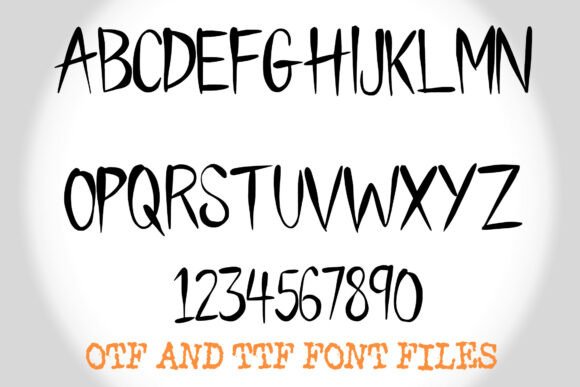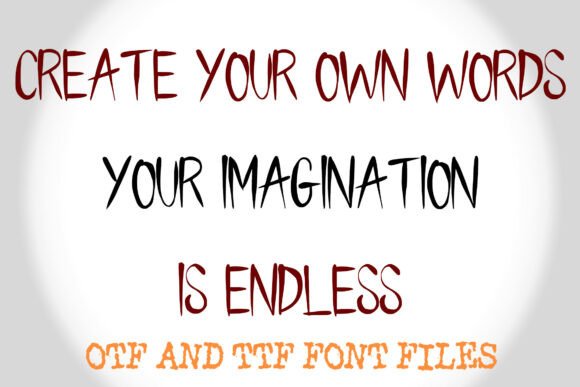
Unleash Your Creativity with Edgy Ink Handwriting Font
Are you tired of using the same old fonts for your designs? Do you want to add a touch of rebellion and attitude to your projects? Look no further than the Edgy Ink Handwriting Font. This spiky, expressive handwritten font is perfect for creators who want to make a statement.
The Perfect Font for Edgy Designs
Edgy Ink Handwriting Font is a gritty yet stylish choice for designers who want to add a touch of horror, edginess, or artsiness to their projects. Its elongated, pointed strokes give it a rebellious vibe that’s perfect for:
- Horror titles and movie posters
- Edgy branding and packaging
- Posters and flyers for concerts or events
- Zines and independent publications
What Makes Edgy Ink Handwriting Font So Unique?
Edgy Ink Handwriting Font stands out from other fonts due to its unique characteristics. Here are a few features that make it so special:
- Elongated, pointed strokes: The font’s elongated strokes give it a sense of movement and energy, while the pointed tips add a touch of edginess.
- Spiky and expressive: The font’s spiky and expressive nature makes it perfect for designs that require a bit of attitude and personality.
- Handwritten feel: The font’s handwritten feel gives it a personal and organic touch that’s perfect for designs that require a bit of humanity.
Why Choose Edgy Ink Handwriting Font?
There are many fonts available that can add a touch of edginess to your designs. So, why choose Edgy Ink Handwriting Font? Here are a few reasons:
- Versatility: Edgy Ink Handwriting Font can be used for a wide range of projects, from horror titles to edgy branding.
- Ease of use: The font is easy to read and use, making it perfect for designers of all skill levels.
- Unique style: The font’s unique style ensures that your designs will stand out from the crowd.
How to Use Edgy Ink Handwriting Font in Your Designs
Using Edgy Ink Handwriting Font in your designs is easy. Here are a few tips to get you started:
- Pair it with a neutral font: Pair Edgy Ink Handwriting Font with a neutral font to create contrast and add visual interest to your designs.
- Use it sparingly: Use Edgy Ink Handwriting Font sparingly to add a touch of edginess to your designs. Overusing the font can make your designs look cluttered and overwhelming.
- Experiment with colors: Experiment with different colors to add depth and visual interest to your designs.
Edgy Ink Handwriting Font is a powerful tool for designers who want to add a touch of rebellion and attitude to their projects. Its unique style, versatility, and ease of use make it a great choice for a wide range of designs. Whether you’re creating horror titles, edgy branding, or posters, Edgy Ink Handwriting Font is the perfect choice. So, why settle for ordinary fonts when you can unleash your creativity with Edgy Ink Handwriting Font?
Get Ready to Make a Statement
With Edgy Ink Handwriting Font, you’re not just choosing a font – you’re making a statement. You’re telling the world that you’re not afraid to take risks, to push boundaries, and to challenge the status quo. So, what are you waiting for? Download Edgy Ink Handwriting Font today and start making a statement with your designs.